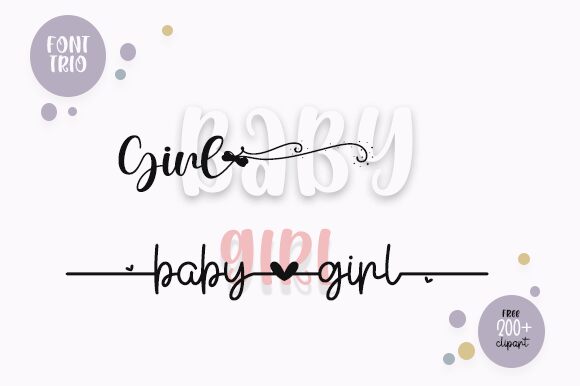
Girl, a handwritten font designed by Nopinati, is perfect for creating organic and playful designs. It's suitable for all types of projects, from logos and branding to posters and greeting cards. Give your work a personal touch with Girl!
Girl
Nopinati